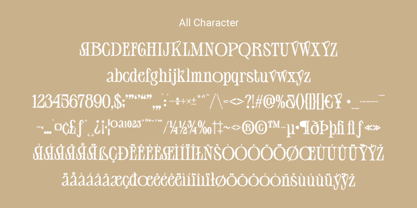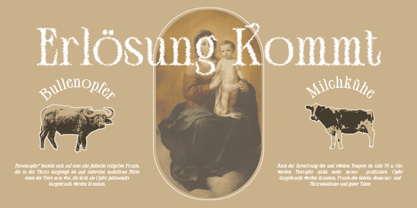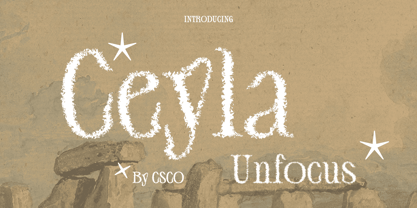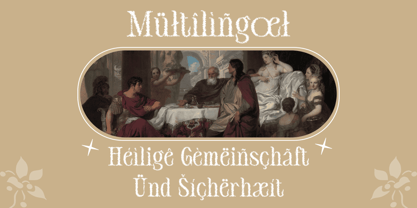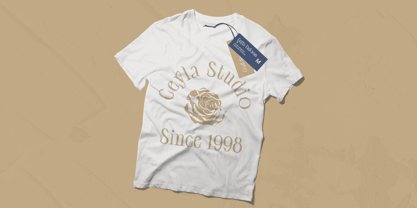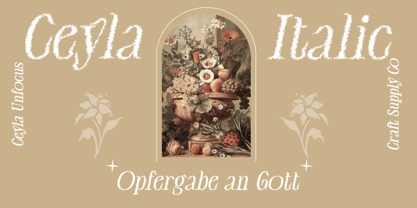
Ceyla Unfocus
by Craft Supply Co
The Ceyla Unfocus Font Family was designed by Trio Nazzar Saputra, Wahyu Hadi Yuana and published by Craft Supply Co. Ceyla Unfocus contains 2 styles and family package options. More about this family
Ceyla Unfocus: Redefining Display Typography Blurry Serif Elegance Ceyla Unfocus introduces a unique twist to display typography with its high-contrast serif design and subtle unfocus effect. The blurred contours add an intriguing element to its overall aesthetic. Perfect for Contemporary Display Tailored for contemporary display purposes, This font thrives in experimental design contexts. Its unconventional appearance challenges traditional typographic norms, making it ideal for cutting-edge projects. Versatile Experimental Appeal Beyond its distinctive blur effect, This font offers versatility in experimental design applications. From contemporary art installations to avant-garde editorial layouts, its blurry serif style adds a captivating touch. Unleash Creativity with Ceyla Unfocus Step into the realm of experimental typography and unleash your creativity with This font. Its high-contrast serif design and unfocus effect offer endless possibilities for innovative and boundary-pushing design projects. Blurred Elegance for Modern Design This font redefines display typography with its high-contrast serif design and subtle blur effect. Perfect for contemporary and experimental projects, it invites designers to push the boundaries of creativity and explore new realms of typographic expression.
Designers: Trio Nazzar Saputra, Wahyu Hadi Yuana
Foundry: Craft Supply Co